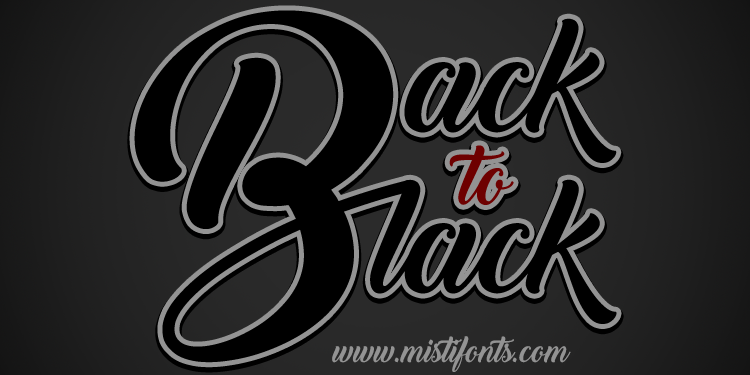
Back to Black Font
About Back to Black Font
The stunning Back to Black font by Misti’s font. Great for all your (craft) projects that require a bit of personal touch.